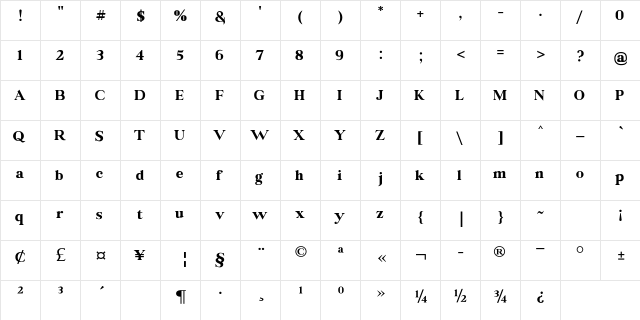
Gloria Ramsey Regular
Design Context for Gloria Ramsey Typeface
Gloria Ramsey offers clean, dependable letterforms without strong stylistic allegiance, making it a practical choice for designers who need flexibility.
Pro Tip: Pair Gloria Ramsey with a font of contrasting weight or personality to build a more expressive typographic hierarchy.